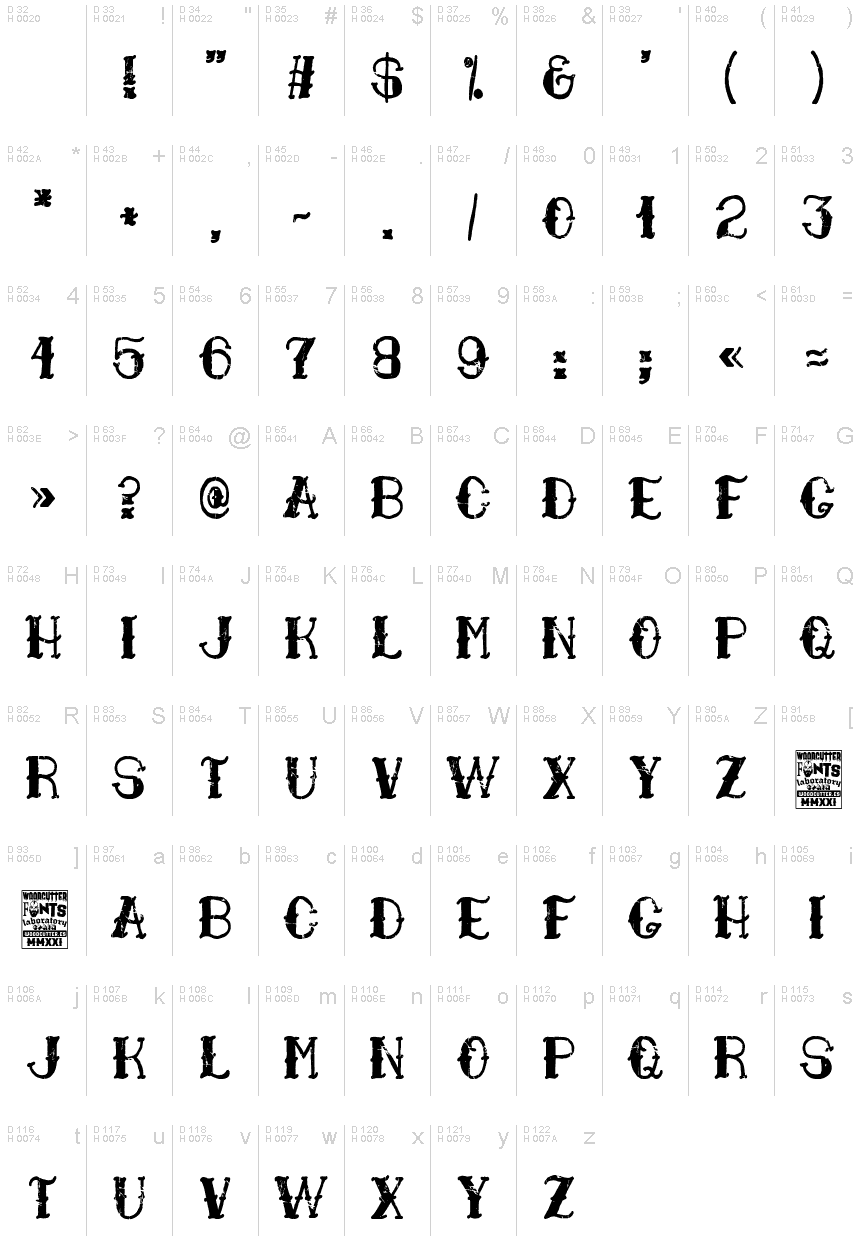
Marinero Tatuado
Marinero Tatuado, a bold and dynamic display font by Woodcutter, takes inspiration from retro Mexican aesthetics. With its strong and impactful design, this font is perfect for creating eye-catching posters and signage that exude a vibrant and nostalgic feel.
Its bold weight adds emphasis to your headlines, making it ideal for logo designs that want to make a powerful statement. Marinero Tatuado brings a touch of the past into the present, making it suitable for various projects such as vintage-themed websites, tattoo parlors branding, or even clothing labels seeking an authentic Mexican flair.